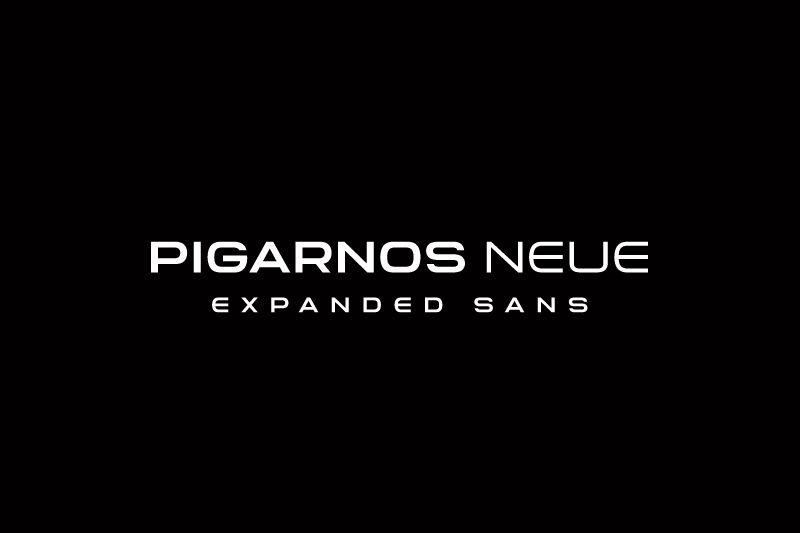
Pigarnos Neue, designed by Mo Ya, is a modern sans serif font with a semi-light weight and expanded width. Its sleek and contemporary design makes it perfect for a wide range of projects.
For fashion magazines, Pigarnos Neue adds an elegant touch to editorial layouts. In web design, its legibility and clean lines make it an excellent choice for corporate websites. For branding purposes, this font gives logos a fresh and sophisticated look.
With its unique combination of style and versatility, Pigarnos Neue is the ideal choice for any project that demands a modern yet timeless appeal.